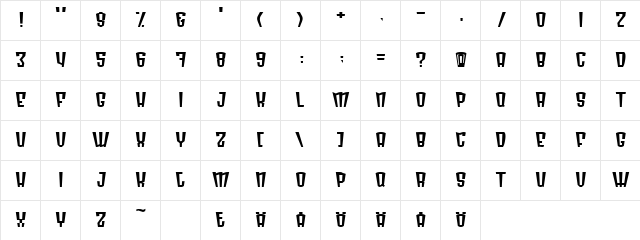
Radonator Monster Normal Free Font
Radonator Monster Normal
Radonator Monster Family
Design Context for Radonator Monster
Radonator Monster is a composed and adaptable typeface that performs quietly and consistently across a wide range of design contexts.